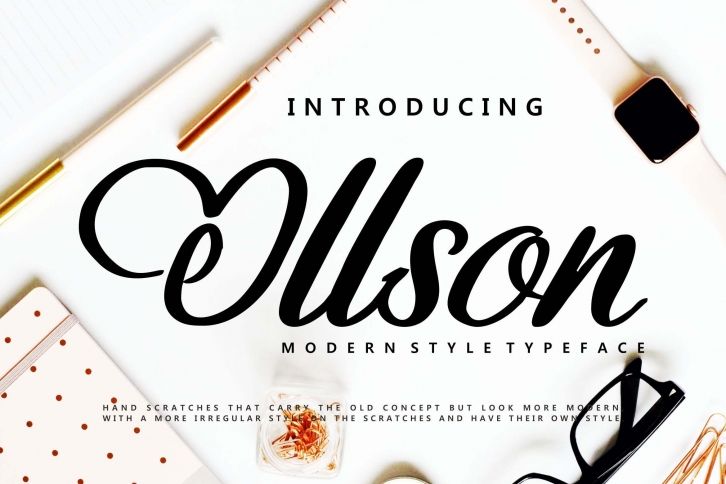
Ollson | Modern Style Typeface with a calligraphy style, So beautiful on invitation like greeting cards, branding materials, business cards, quotes, posters, and more!
- Alternates and Ligatures